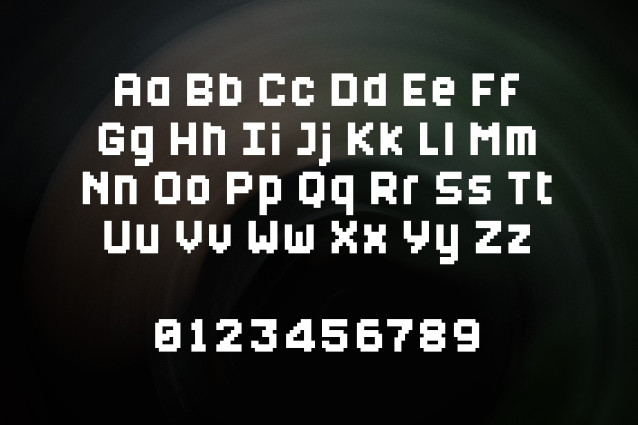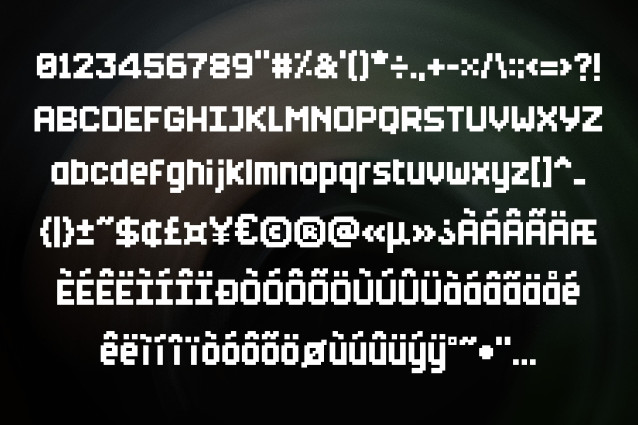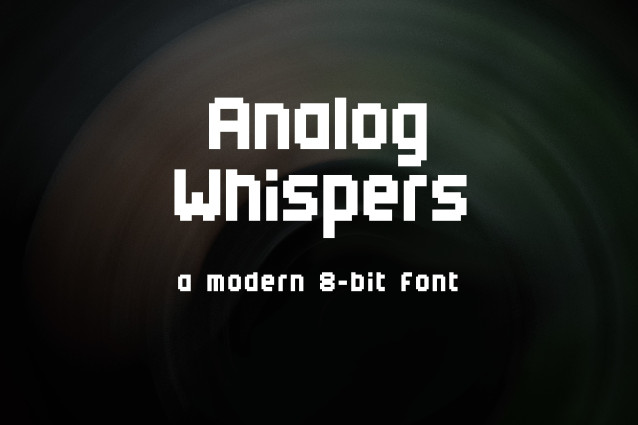
Analog Whispers Font
Analog Whispers Font – Bold, blocky, and unmistakably retro – Analog Whispers brings the nostalgic charm of early digital type into the present. It’s crisp, readable, and surprisingly versatile.